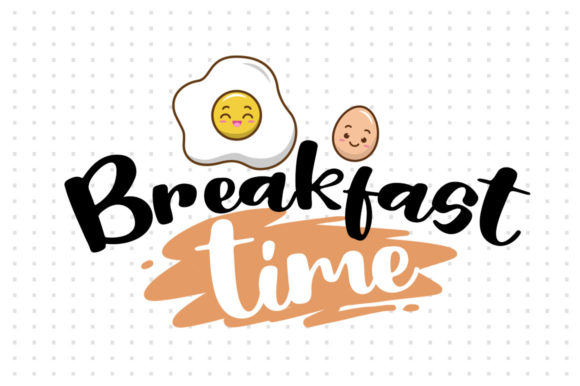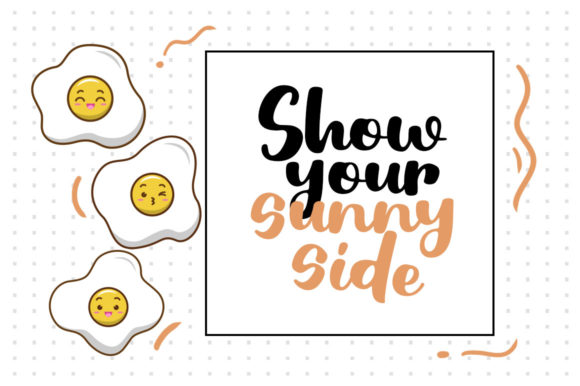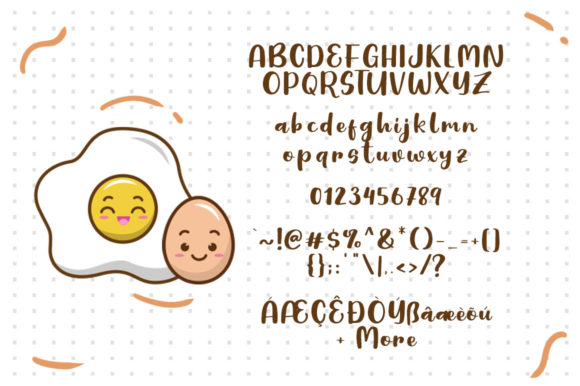
Crafting Whimsy with the Cute Egg Font
Remember the thrill of creating something entirely new, just for the joy of it? Maybe it was a doodle in your sketchbook, a logo for a hypothetical business, or a title for a story you’ve yet to write. Whatever it was, the spark of creativity is what drives us to keep pushing the boundaries of our imagination. And for designers, the right tools can make all the difference.
Enter the Cute Egg Font, a delightful script font that’s as fun to use as it is functional. With its round, playful letters, this font is the perfect choice for cartoon-related designs, children’s games, and any project that needs a lighthearted touch. Whether you’re a seasoned pro or just starting out, the Cute Egg Font is a valuable addition to any designer’s toolkit.
Cute Egg Font Key Features
- Font Family: Cute Egg Font is a unique, hand-drawn font that features adorable egg characters.
- Character Set: Includes a wide range of characters, including uppercase and lowercase letters, numbers, punctuation, and special characters, making it suitable for various design projects.
- Resolution: Optimized for high-resolution displays, ensuring clear and crisp rendering of the font characters.
- Unique Characteristics: The font’s hand-drawn style and egg characters give it a playful and whimsical feel, making it perfect for children’s books, greeting cards, and other designs that require a touch of cuteness.
Cute Egg Font Review
I recently had the chance to work with the Cute Egg Font, and I must say it’s a unique and playful addition to any design project. ✨ The rounded shapes and bubbly feel give it a youthful and whimsical vibe that’s perfect for children’s books, nursery decor, or any design that needs a touch of sweetness.
Here are some of the things that work well with this font:
- Highly customizable: The Cute Egg Font comes with a range of styles, from bold to light, making it easy to find the perfect fit for your design.
- Extensive character set: The font includes a wide range of characters, including Latin and Cyrillic alphabets, making it suitable for international designs.
- Easy to read: Despite its playful feel, the font is surprisingly easy to read, even at smaller font sizes.
However, there are a few limitations to keep in mind:
- Limited legibility at very small sizes: While the font is generally easy to read, it may become difficult to read at very small font sizes.
- No support for Asian characters: If you need to design for Asian markets, you may find that the font doesn’t include the necessary characters.
Overall, I’m impressed with the Cute Egg Font. While it may not be suitable for every design project, it’s a great choice for those looking for a playful and youthful feel. With some careful consideration of its limitations, I think this font has the potential to become a valuable addition to any designer’s toolkit.
Use the Cute Egg Font to add a playful touch to your designs, such as:
- Creating social media posts and graphics for kids’ products or services.
- Designing logos and branding materials for children’s entertainment companies.
- Adding a whimsical touch to educational materials, such as worksheets and lesson plans.